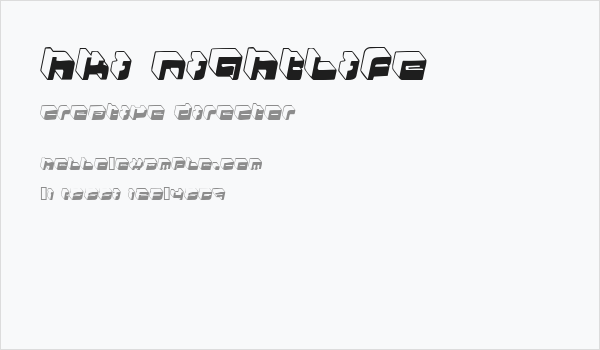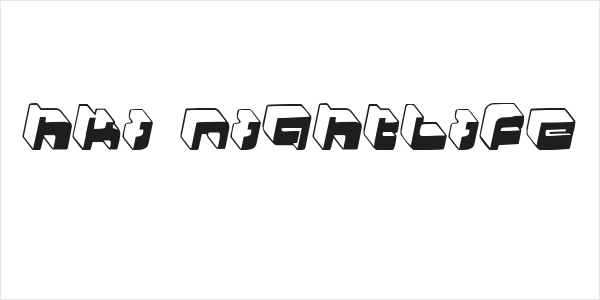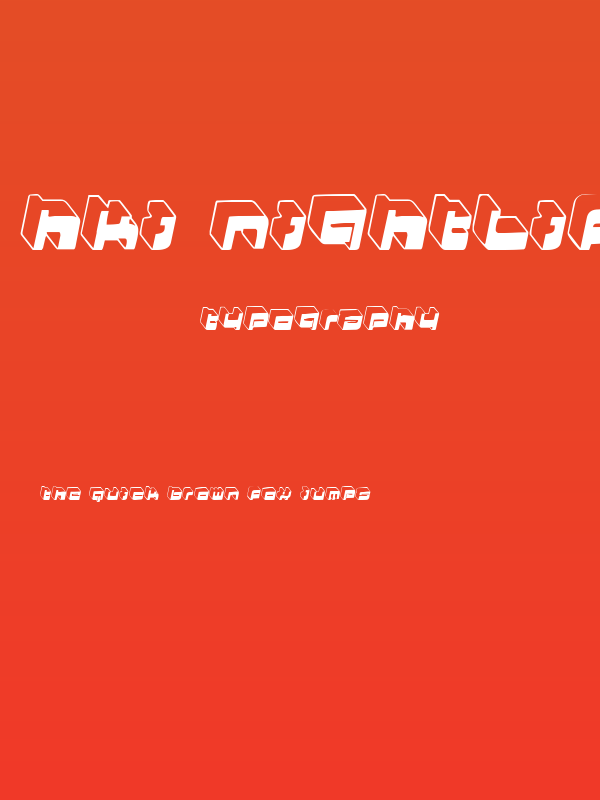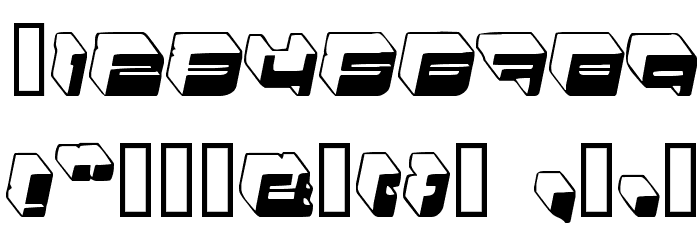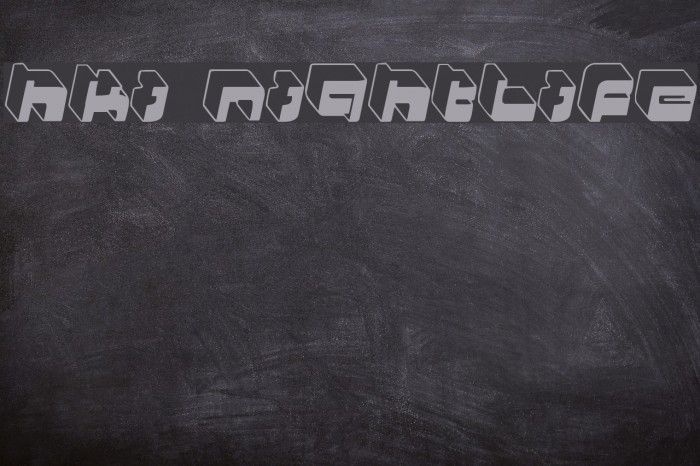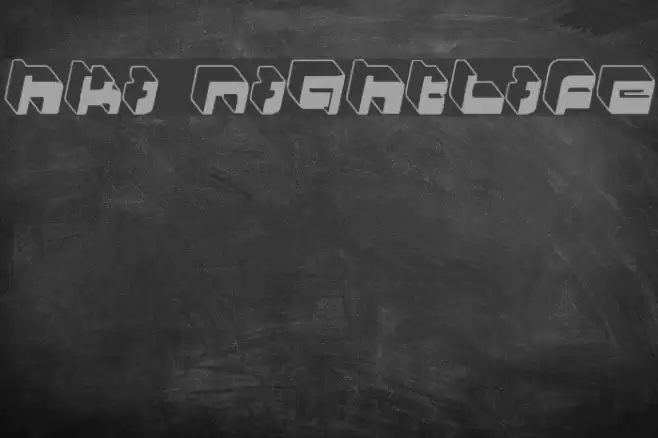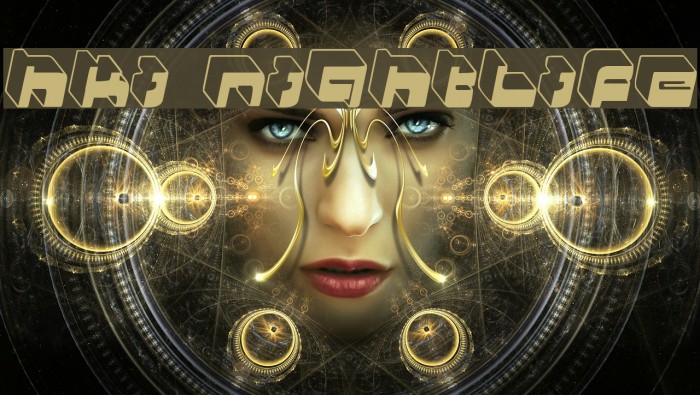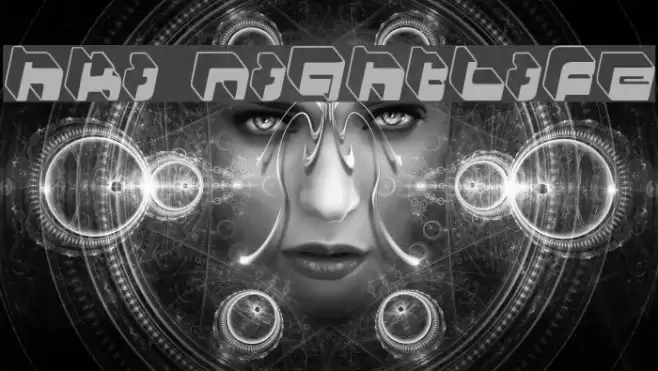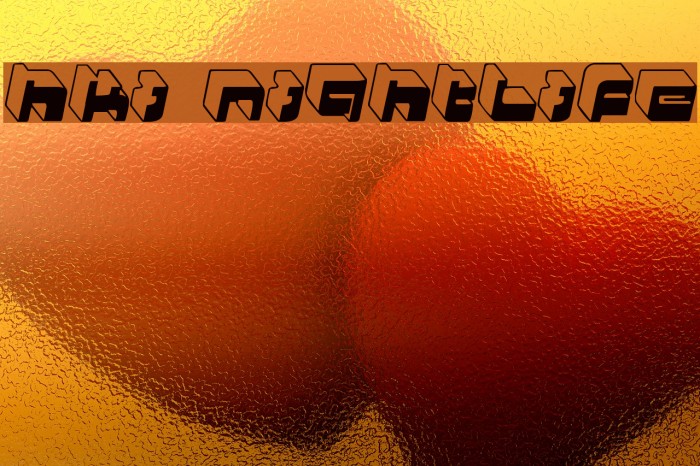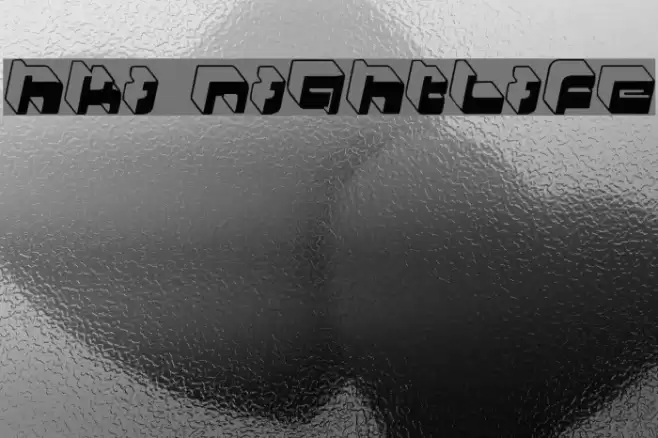
HKI Nightlife Font
This font features a bold, three-dimensional design with a distinct shadow effect, giving each character a sense of depth and volume. The letters are blocky and geometric, with sharp angles and clean lines that create a modern, futuristic appearance. The uppercase and lowercase characters maintain a consistent style, while the numerals and special characters integrate seamlessly into the overall design. The font's unique style makes it stand out, making it ideal for eye-catching headlines and creative projects.
| Proposed Projects | Ideal for use in posters, logos, video game graphics, and any project requiring a bold, standout typeface. |